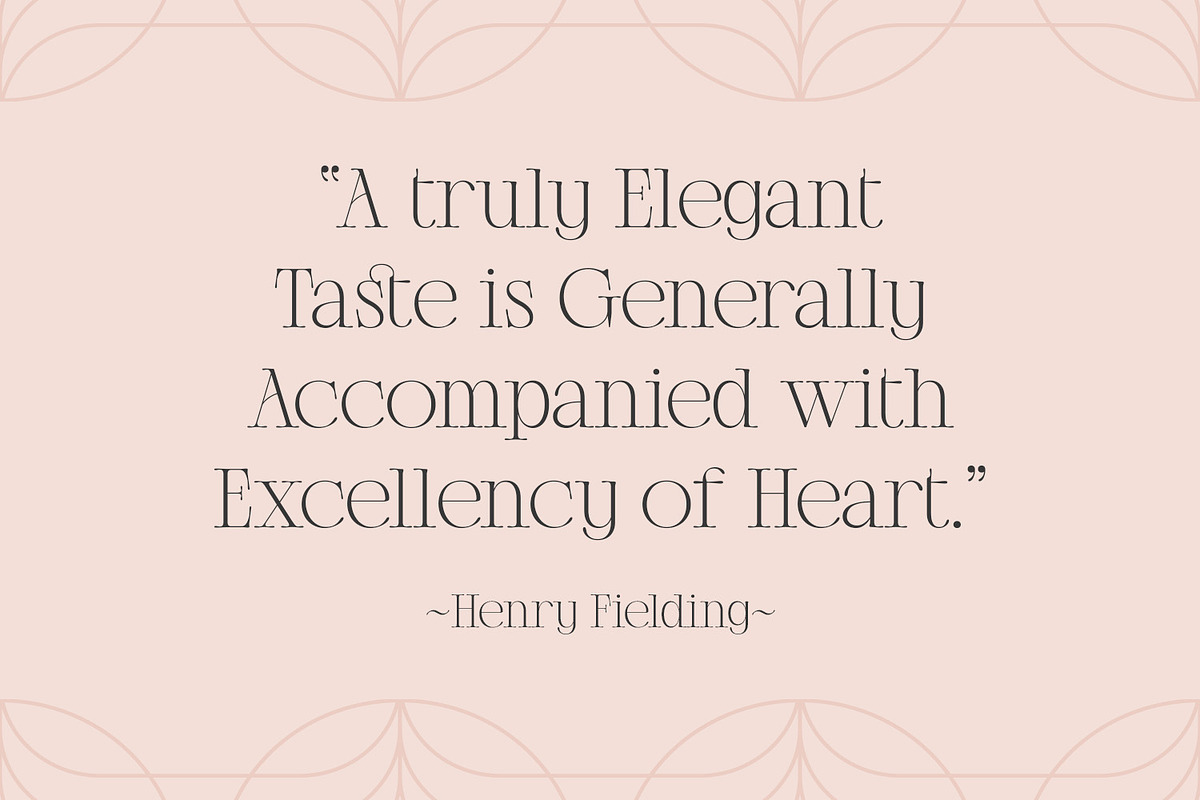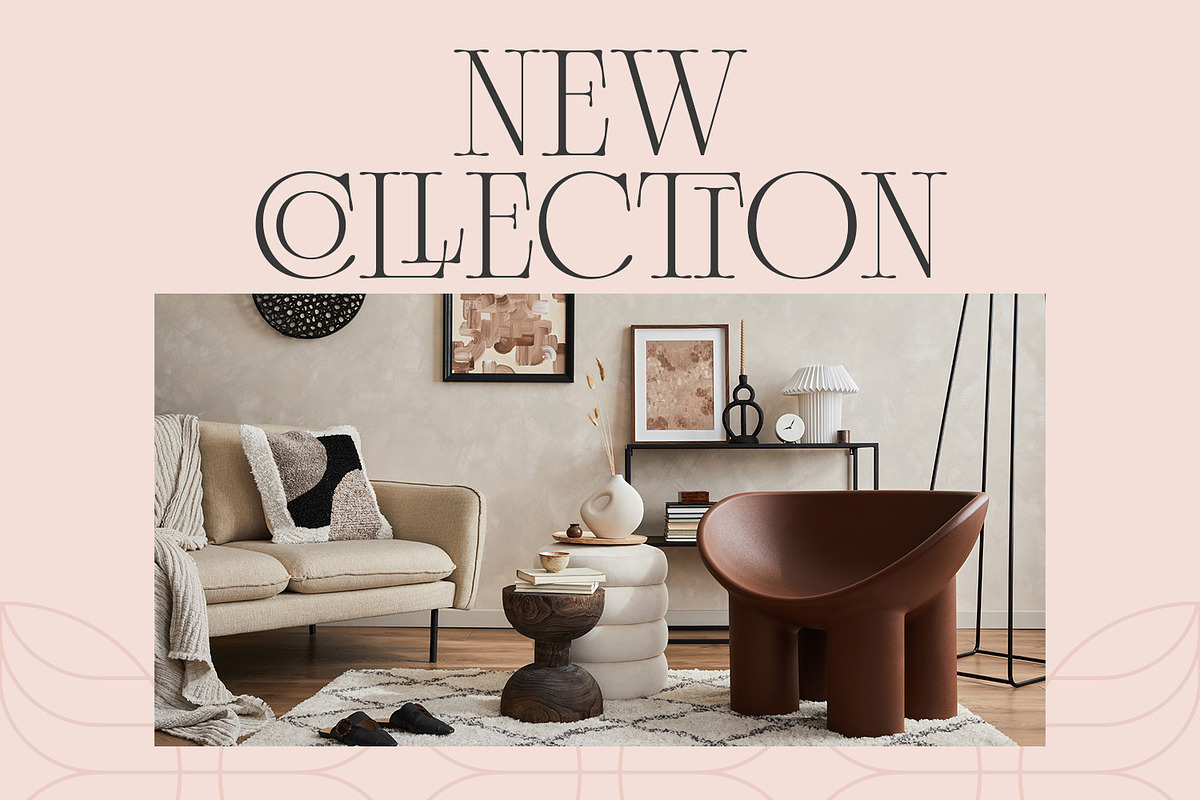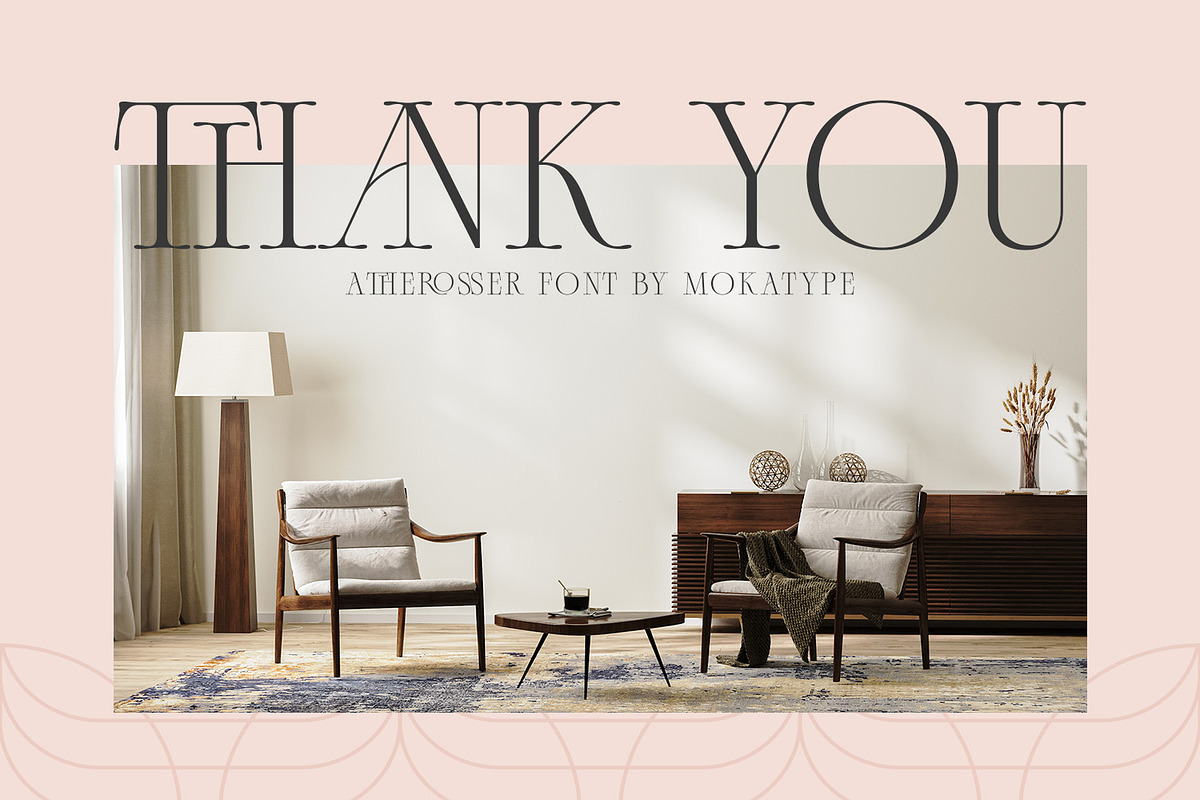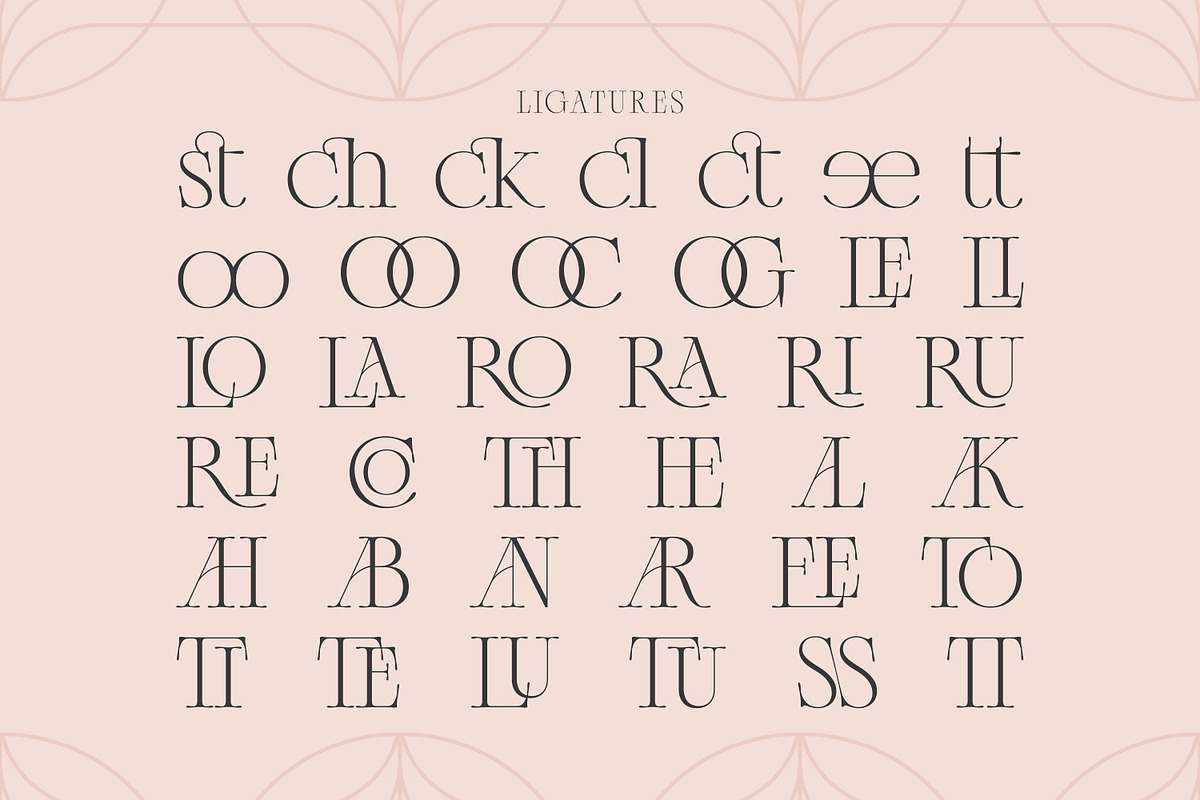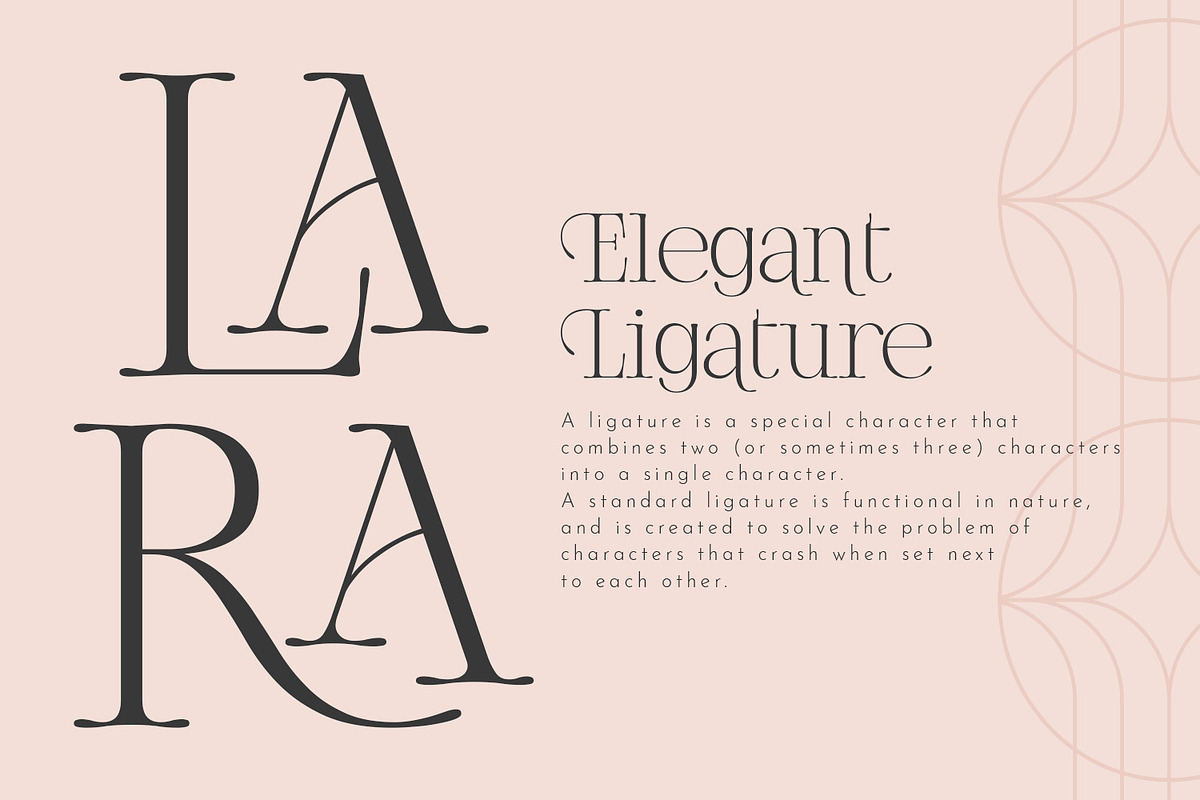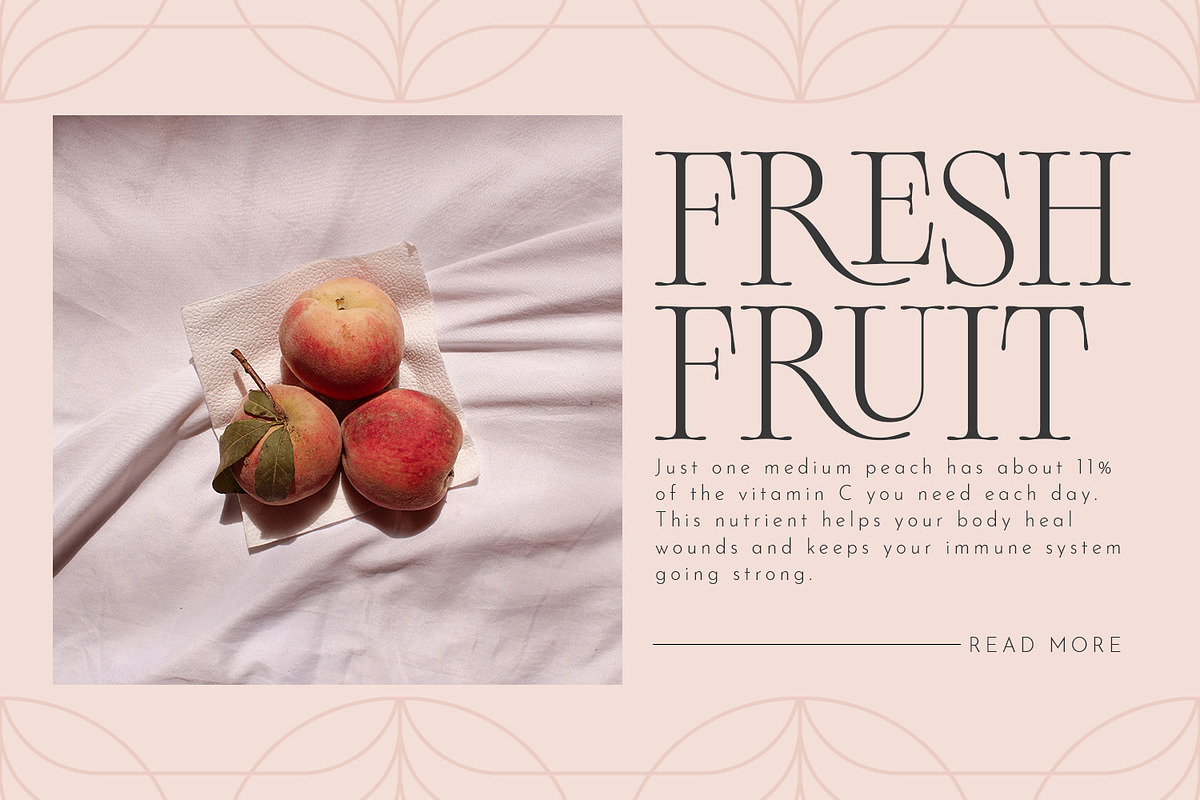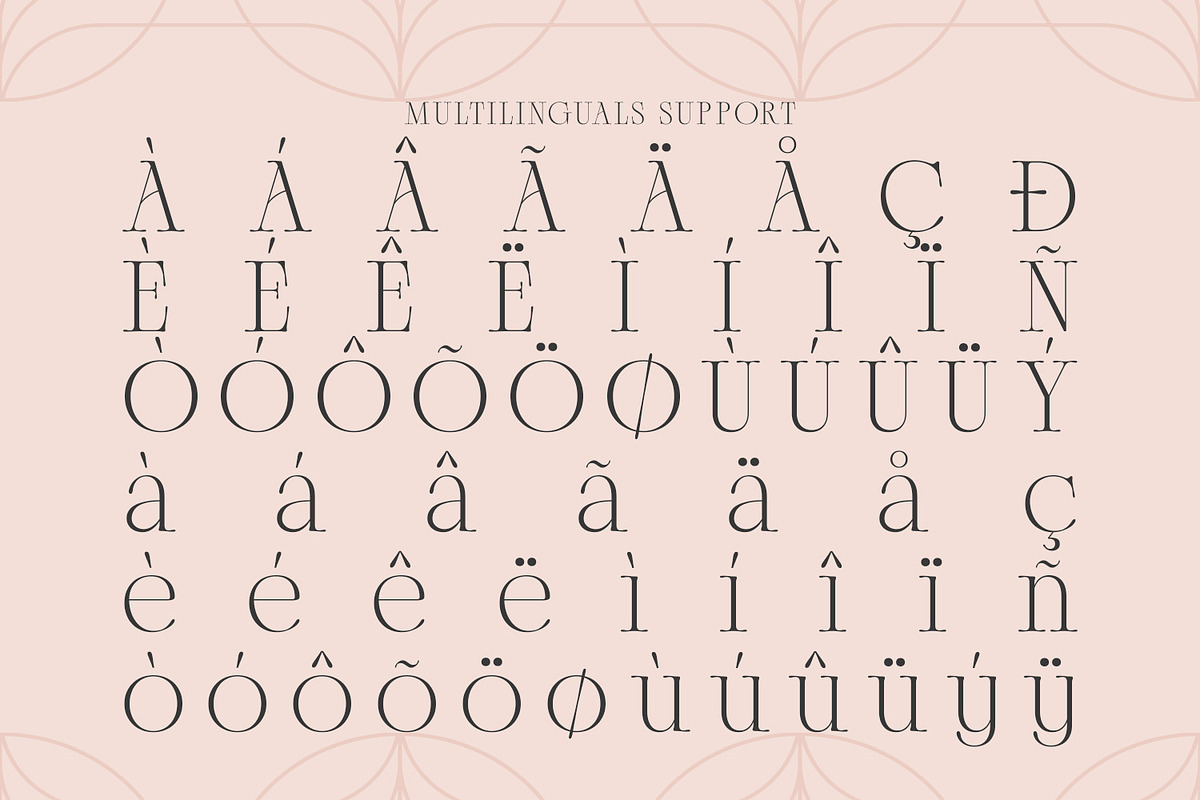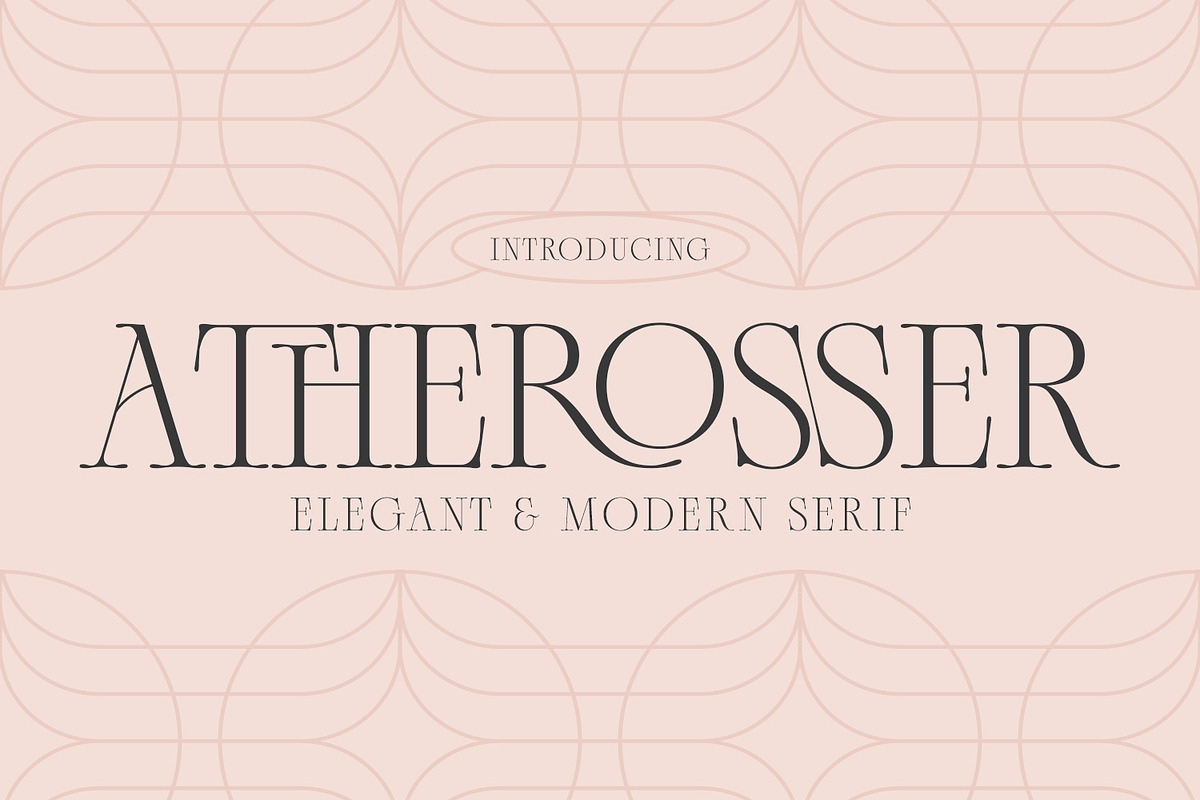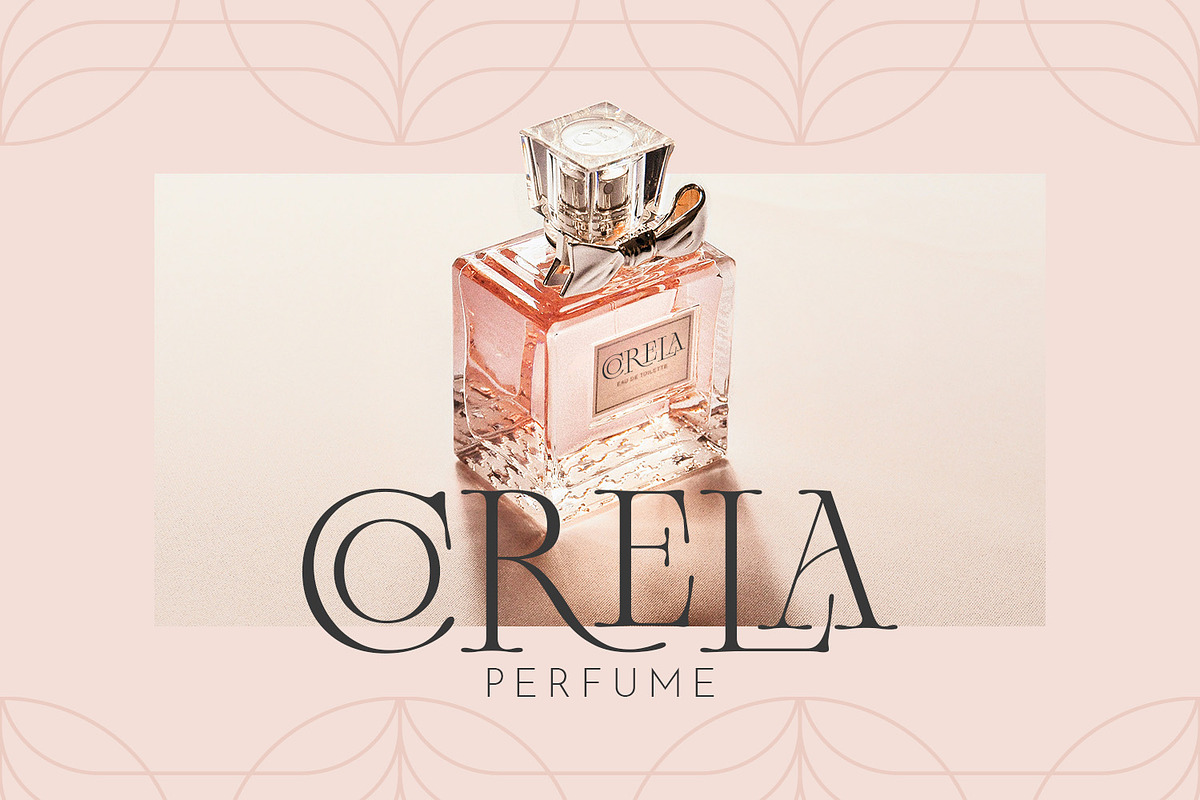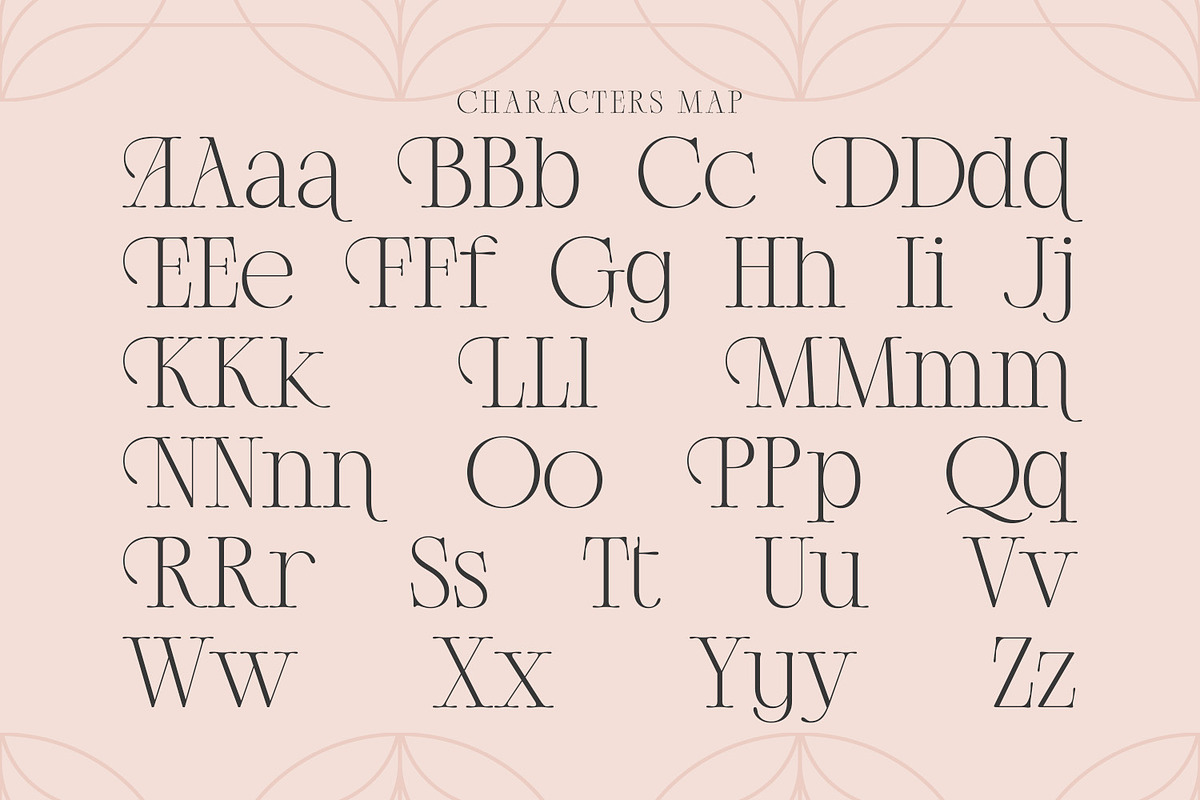
Atherosser - Classic Serif
Atherosser is elegant classic serif font inspired from old formal roman, built with modern nuance, and still looks vintage, unique design with rounded on the tip of serif and lots of alternates and ligatures. This font is suitable for any purposes of design like headlines, typography, Poster, magazines, brochures, packaging, websites, and much more for your design needs, making your designs look like luxurious nuances. And still, this font can be used for long text design.
- Ligatures (Opentype features)
- Alternates (Opentype features)